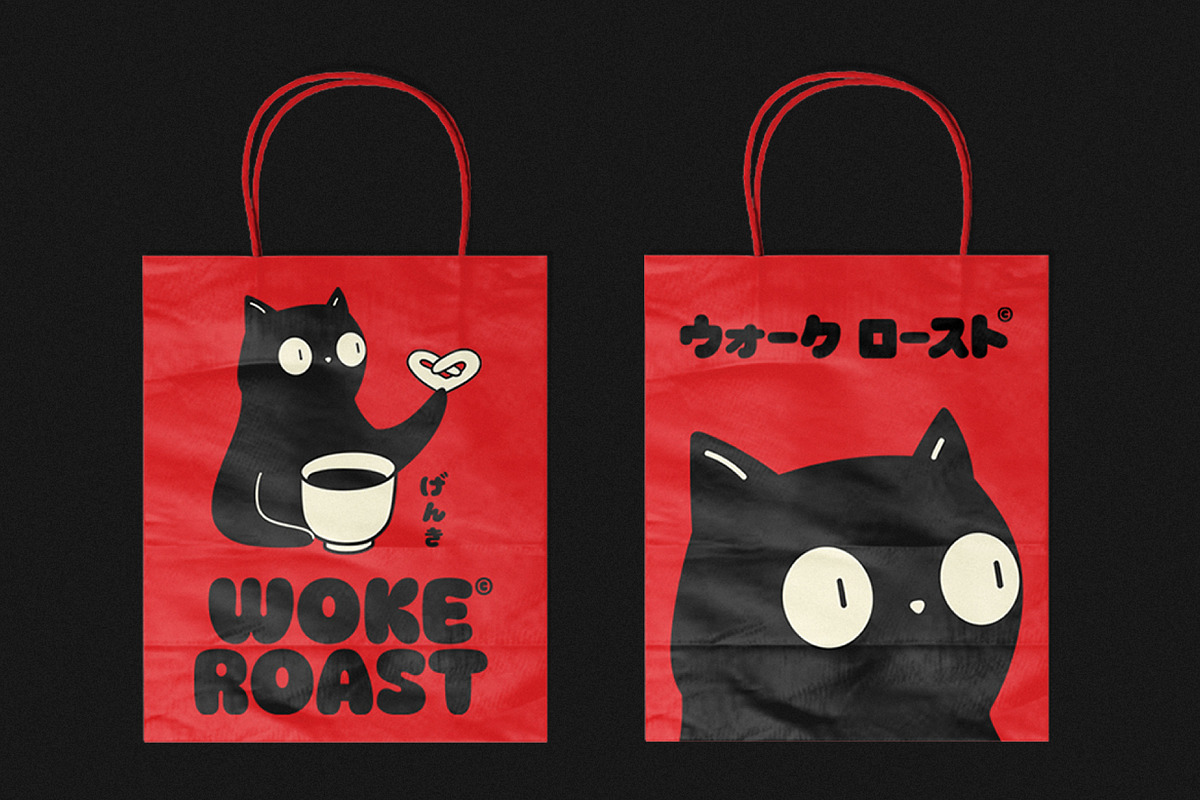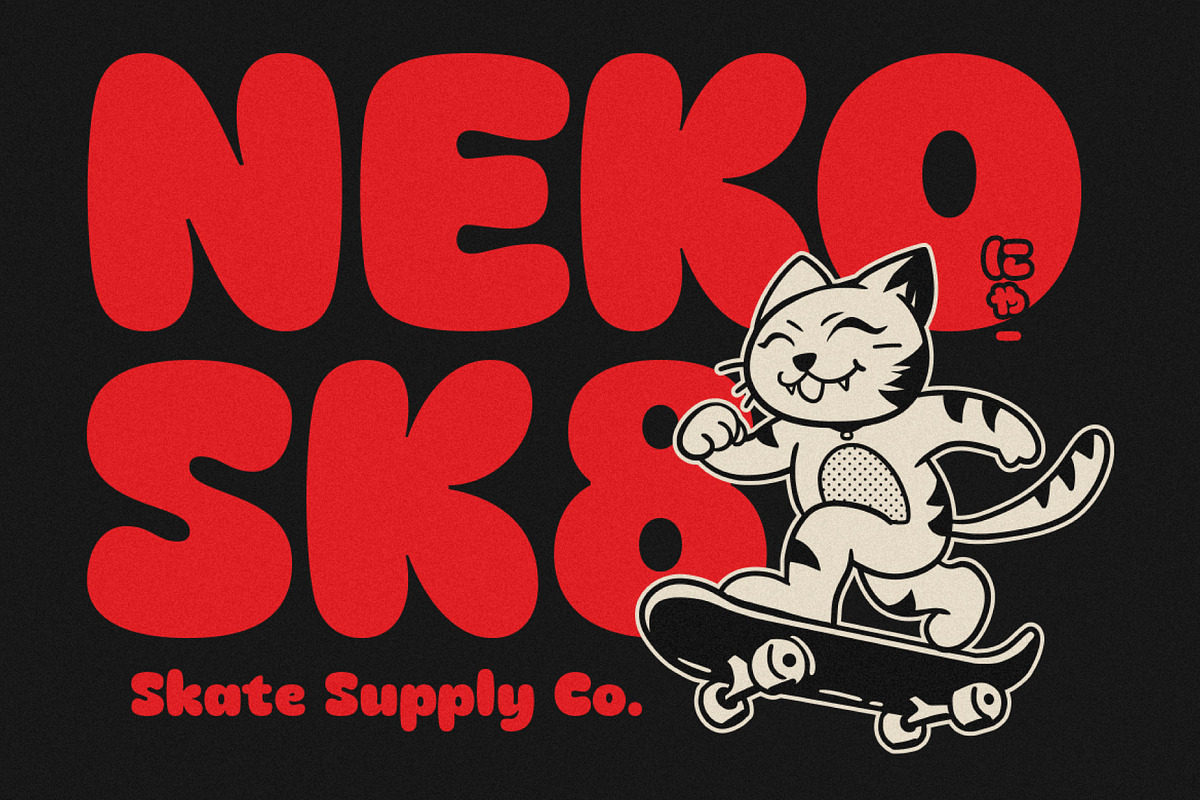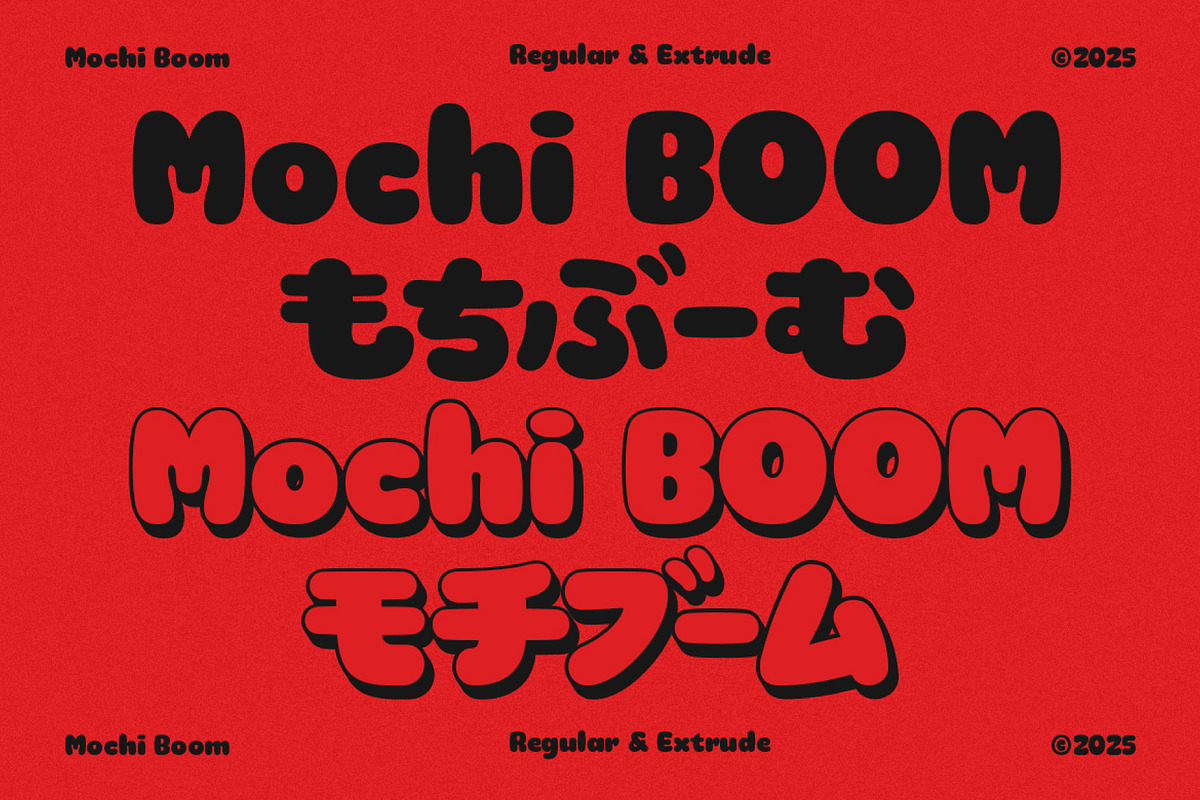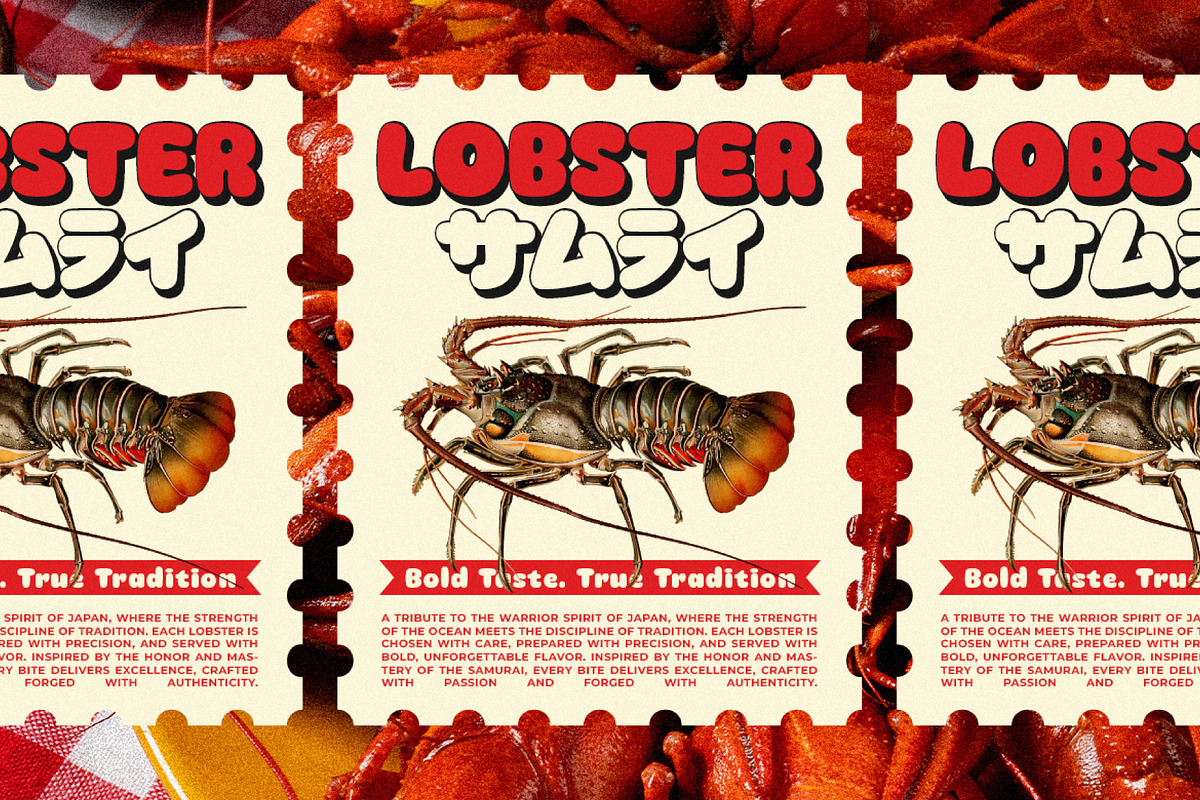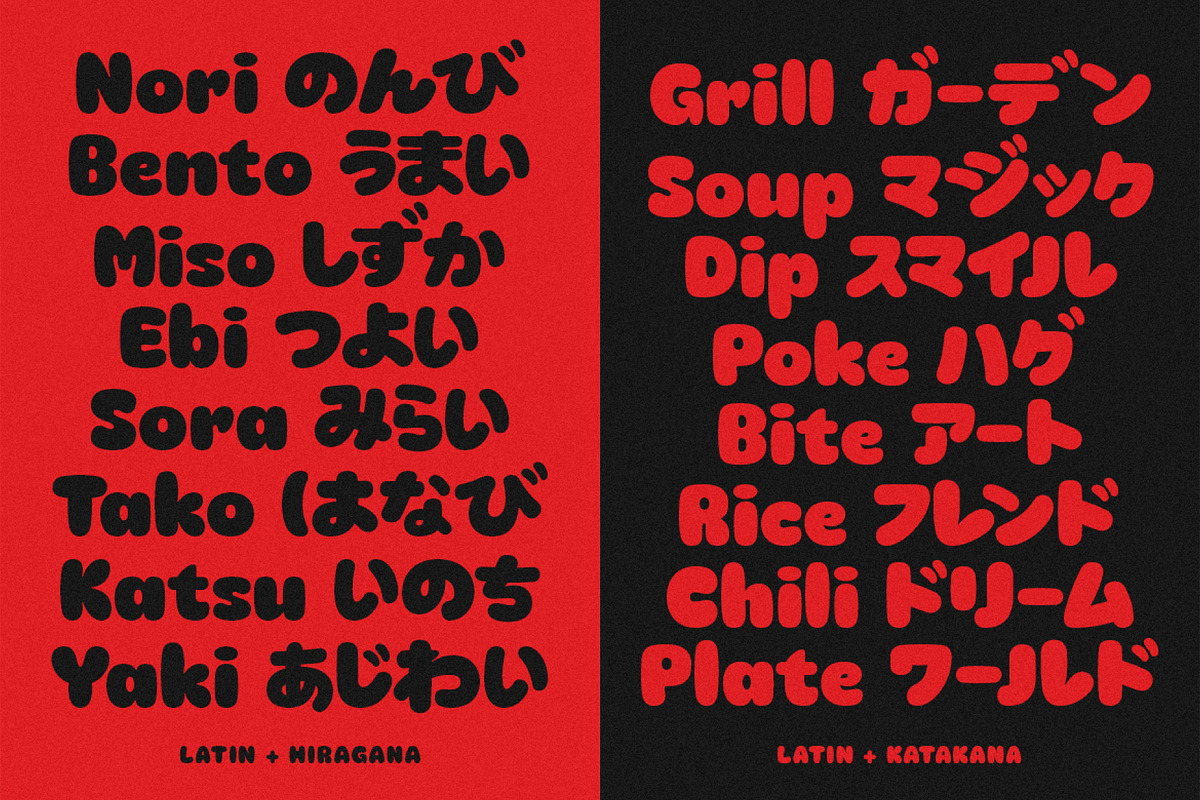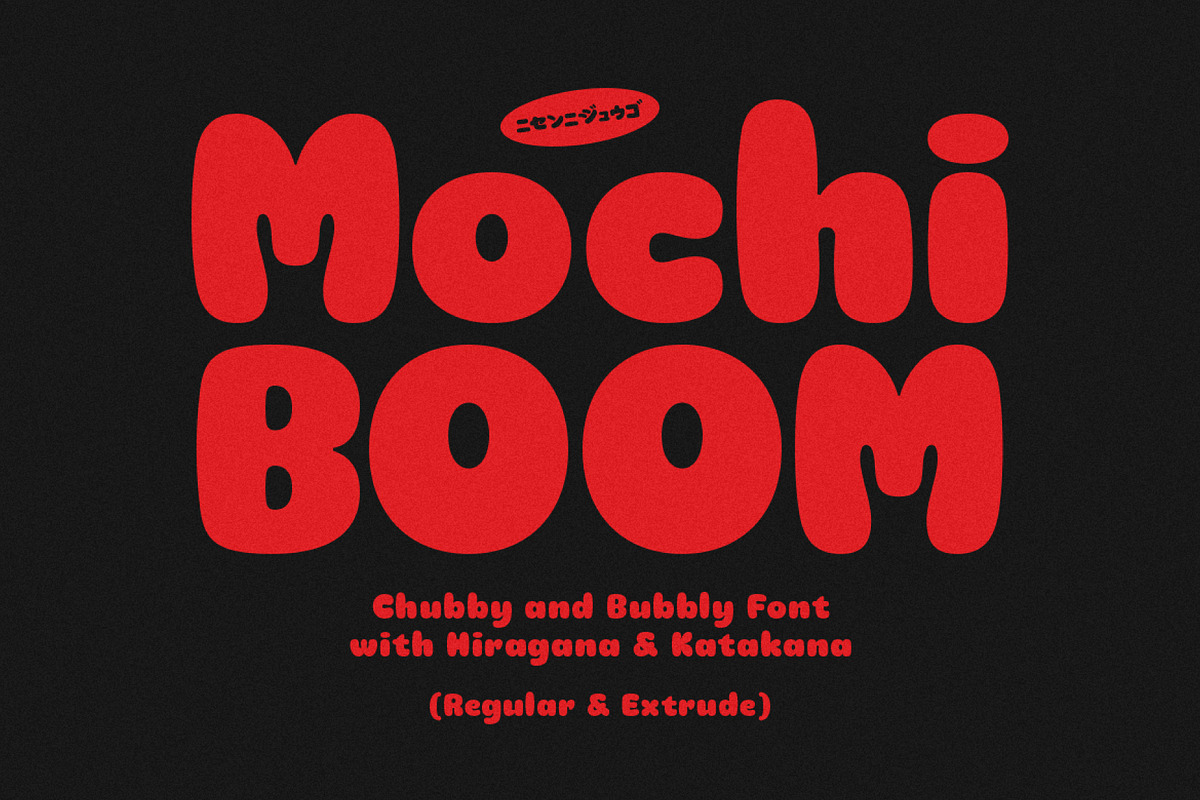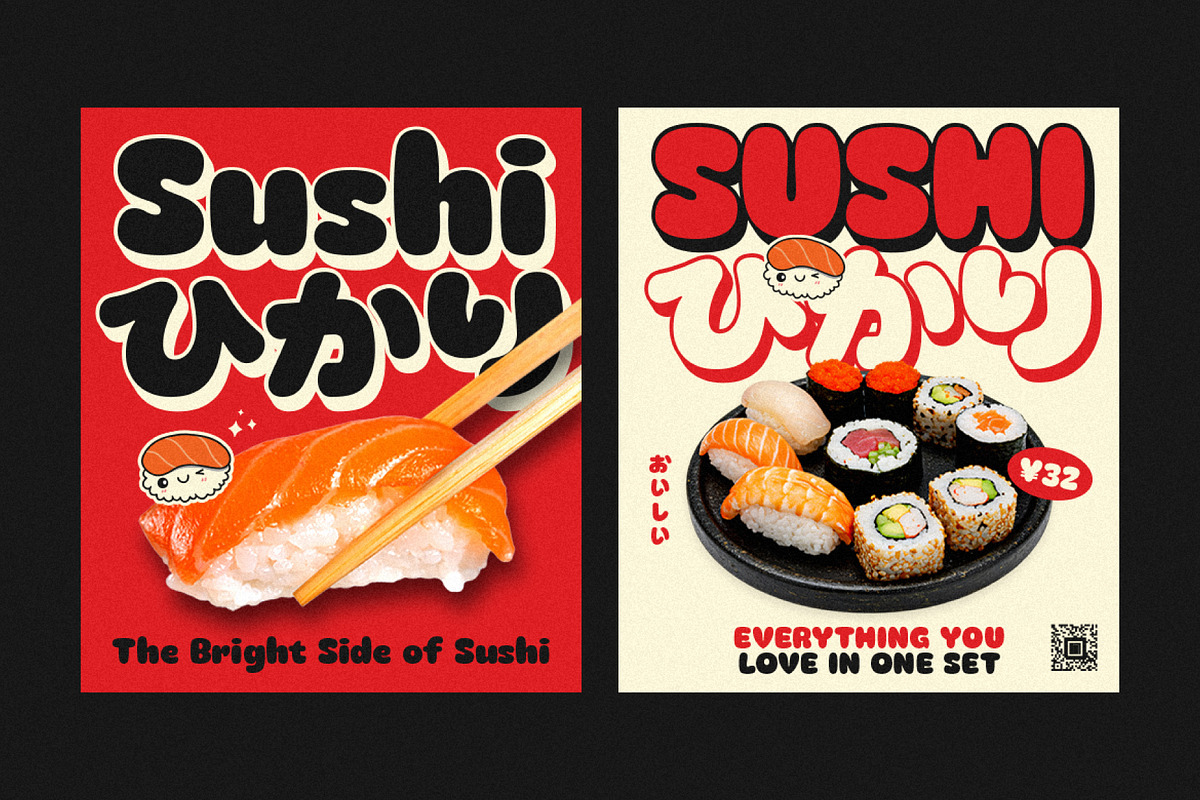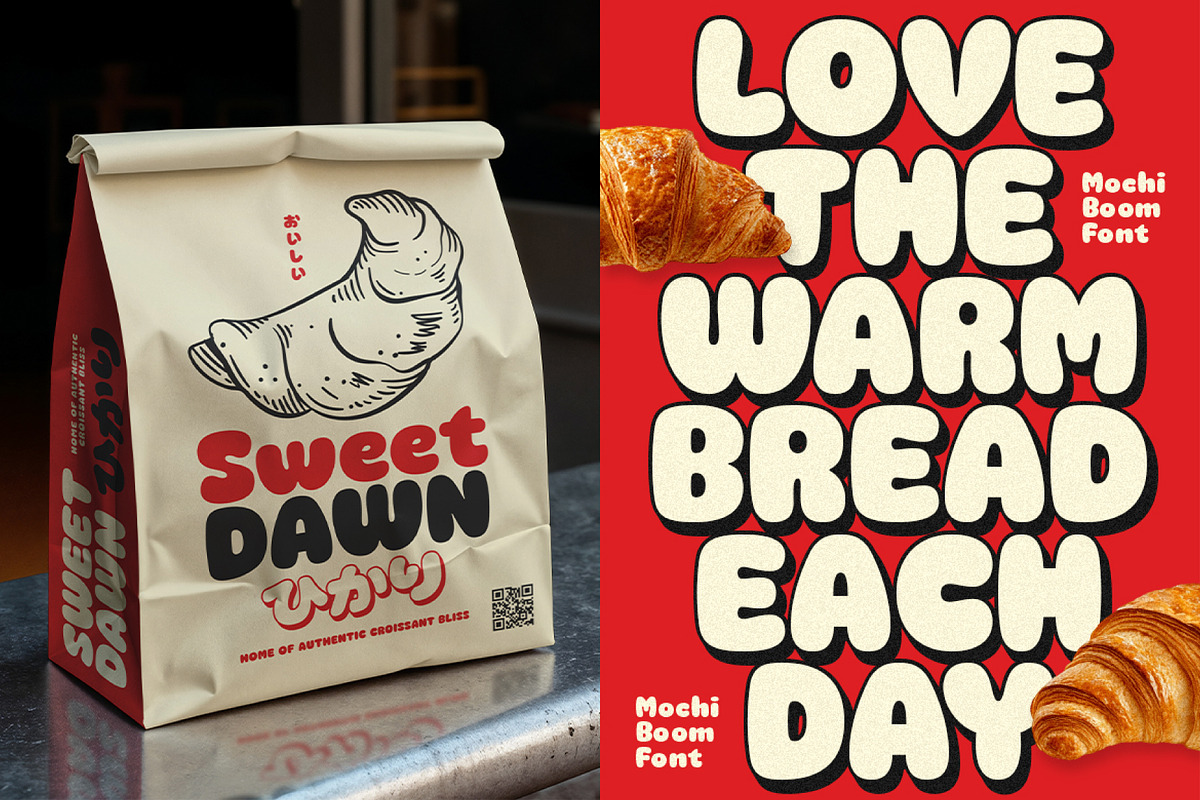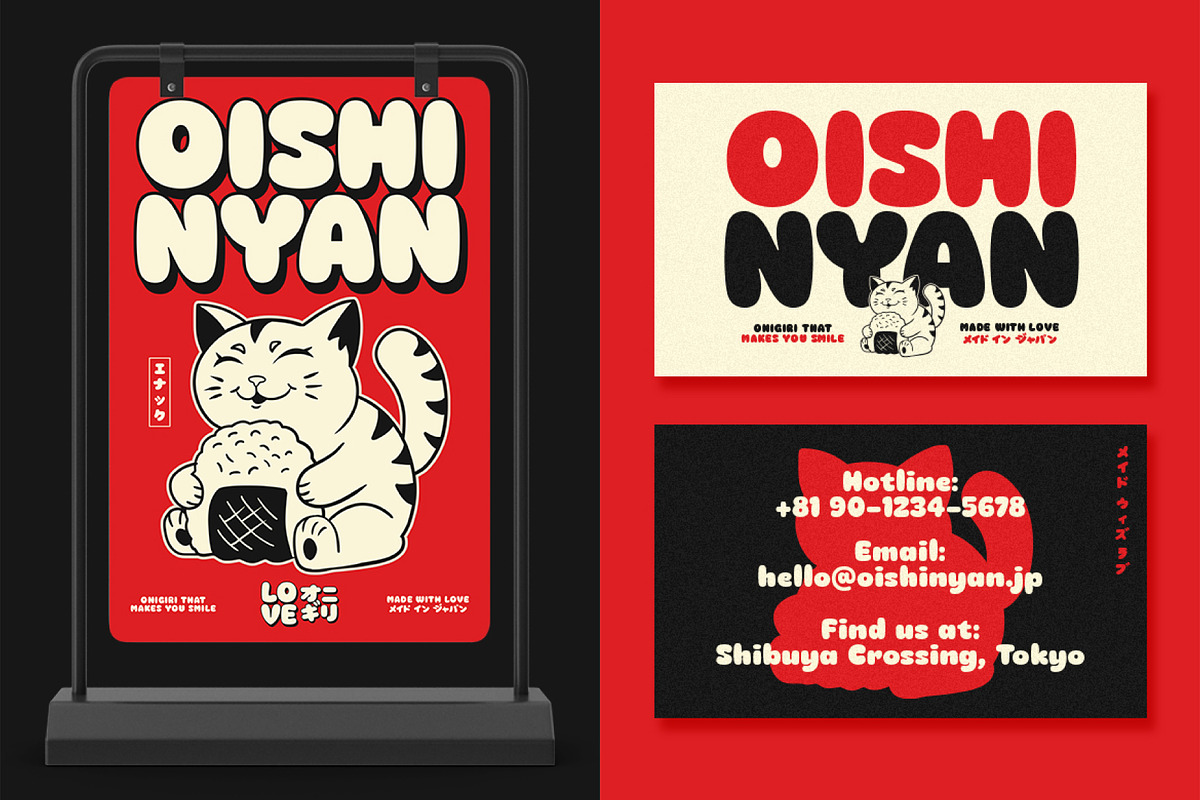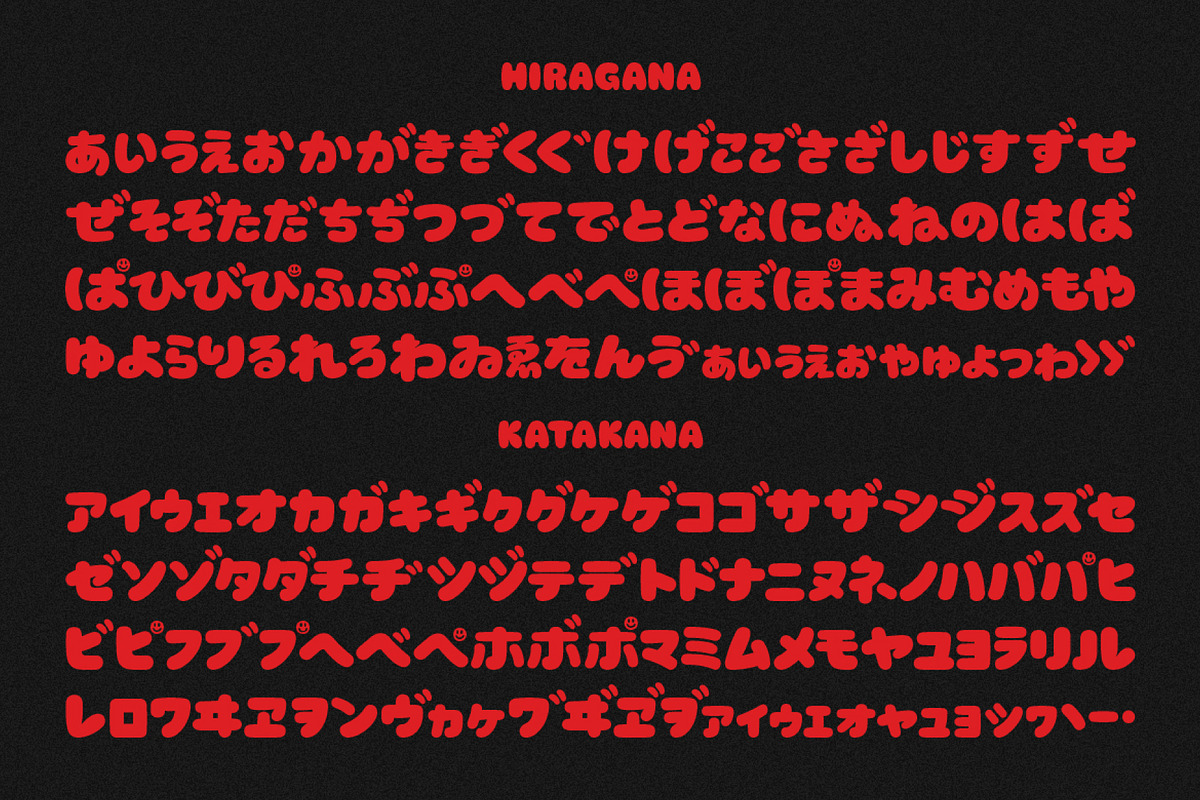
Mochi Boom - Playful Bubbly Font
Mochi Boom is a playful display font with soft rounded shapes that instantly catch the eye. Inspired by the chewy charm of mochi, this font is perfect for food brands, packaging, posters, or any design that needs a fun and friendly touch.
It supports both Latin letters and Japanese Hiragana and Katakana without youon so you can easily create unique and eye-catching typography that stands out. From logos to social media graphics, Mochi Boom adds a sweet and joyful vibe to every project.
Bring your designs to life with Mochi Boom and let every word look as delightful as its name.